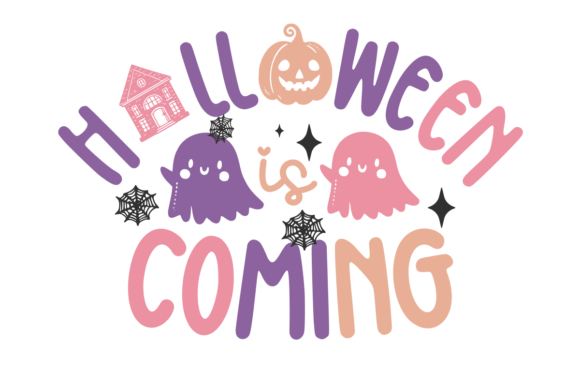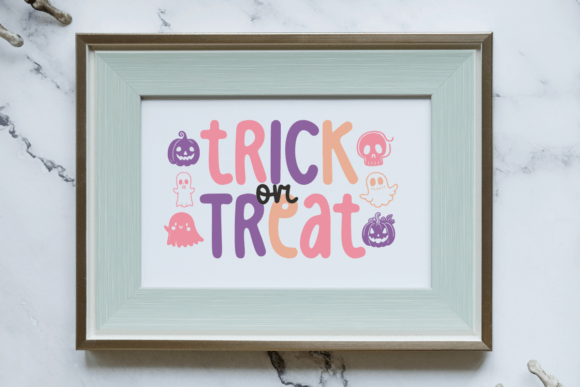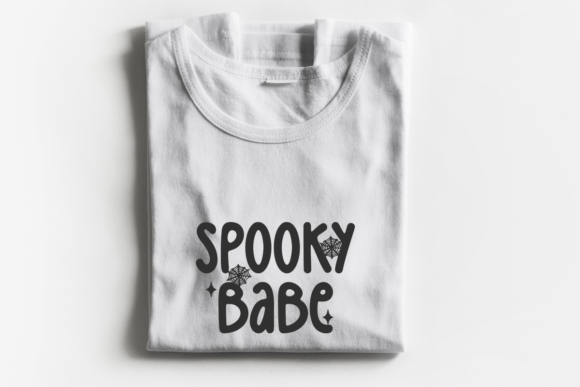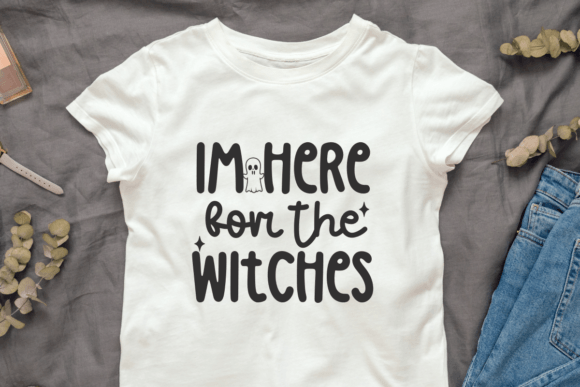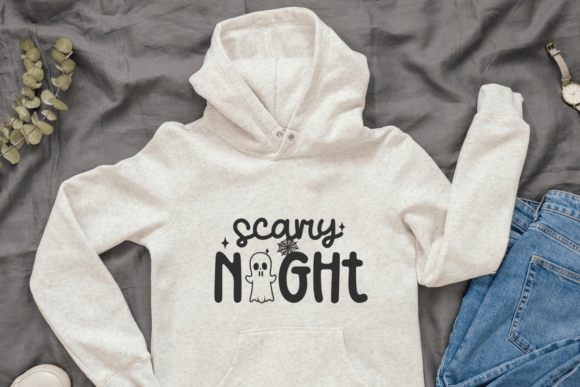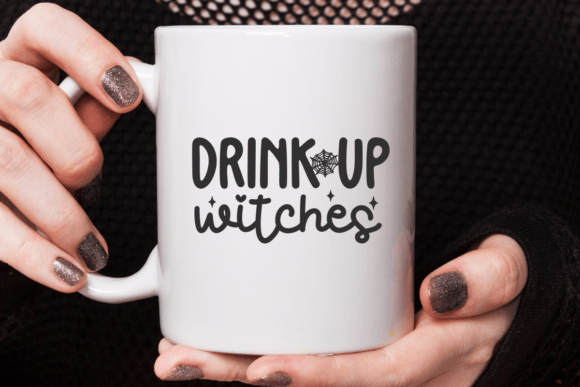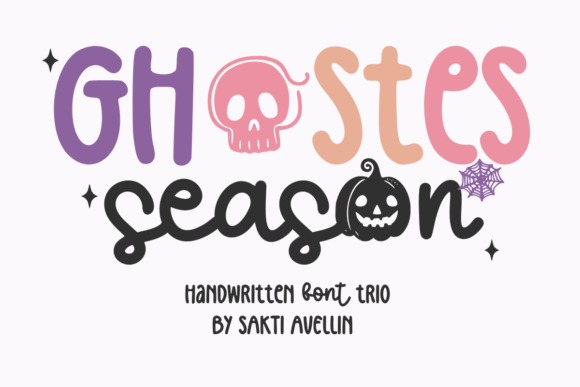
Unleash Your Creativity with Ghostes Season Trio Font
Are you a designer, crafter, or Halloween enthusiast looking for a unique and versatile font to elevate your projects? Look no further than the Ghostes Season Trio Font! This eerie yet hilarious collection of handwritten fonts is perfect for blending the weird with the supernatural, making it an ideal choice for a wide range of craft projects.
What is Ghostes Season Trio Font?
Ghostes Season is a trio of handwritten fonts that are carefully designed to capture the essence of the spooky season. This fun collection includes dynamic script characters, display fonts, and dingbats that are sure to add a touch of personality to your designs. Whether you’re creating decorations, apparel, or accessories, Ghostes Season is the perfect font to make your projects stand out.
Key Features of Ghostes Season Trio Font
• Eerie yet hilarious: Ghostes Season strikes the perfect balance between spooky and humorous, making it ideal for Halloween-themed projects and beyond.
• Versatile: This font trio is suitable for a wide range of craft projects, from decorations and apparel to accessories and more.
• Dynamic script characters: The fonts feature dynamic script characters that add a touch of elegance and sophistication to your designs.
• Display fonts and dingbats: The collection includes display fonts and dingbats that can be used to create eye-catching headlines, titles, and graphics.
Perfect for Craft Lovers and Designers
Ghostes Season Trio Font is a dream come true for craft lovers and designers. Its unique and playful design makes it perfect for a variety of projects, including:
• Halloween decorations: Create spooky yet fun decorations, such as signs, banners, and centerpieces, that will make your Halloween party or event unforgettable.
• Apparel and accessories: Design eye-catching t-shirts, tote bags, mugs, and glasses that will make your friends and family laugh and smile.
• Quote designs: Capture memorable quotes and phrases on decorations, cards, and gifts, adding a personal touch to your presents.
Tips and Ideas for Using Ghostes Season Trio Font
To get the most out of Ghostes Season Trio Font, here are some tips and ideas to inspire your creativity:
• Mix and match: Combine different fonts and styles to create unique and eye-catching designs.
• Experiment with colors: Try out different color schemes and palettes to add depth and personality to your designs.
• Add graphics and illustrations: Incorporate graphics and illustrations to enhance your designs and make them more engaging.
Ghostes Season Trio Font is a versatile and fun font collection that’s perfect for designers, crafters, and Halloween enthusiasts. Its unique blend of eerie and hilarious designs makes it an ideal choice for a wide range of craft projects. With Ghostes Season, your creativity knows no limits, and every design becomes a stand-out masterpiece! So why wait? Download Ghostes Season Trio Font today and unleash your creativity!